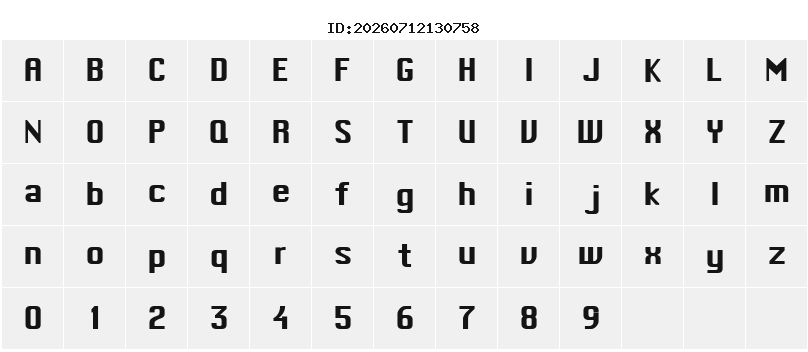
MacType Preview
• Font Name: MacType
• Font ID: MacType LCF2
• Full Font Name: MacType
• Version: 1.0 Sat Dec 28 00:02:21 1996
• PostScript Name: MacType
• Character Count: 249
• Copyright: MacType by LCF. Copyright Timour Jgenti, 1996
About MacType.ttf
MacType.ttf is a modern, elegant sans-serif font designed for ultimate readability and visual harmony. Perfect for branding, headlines, web design, and print materials.